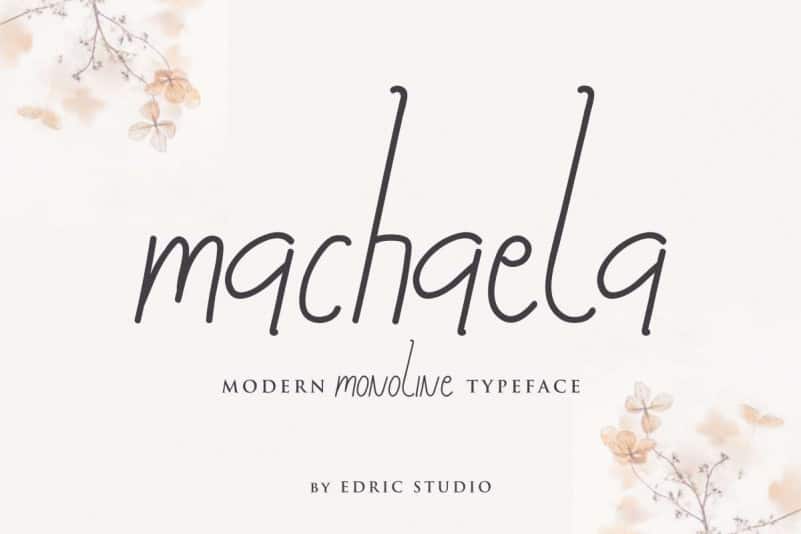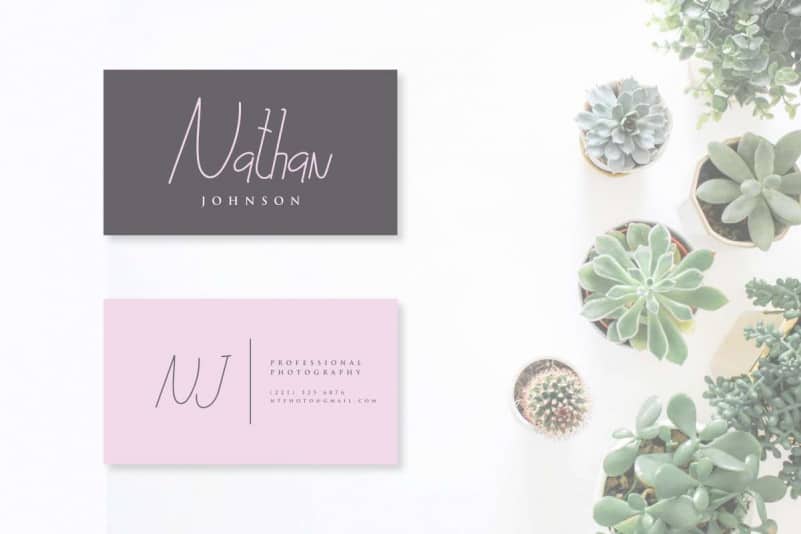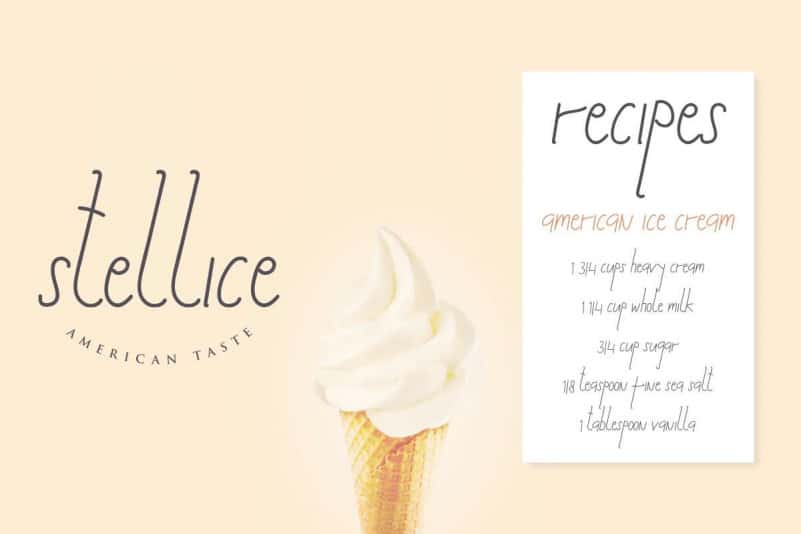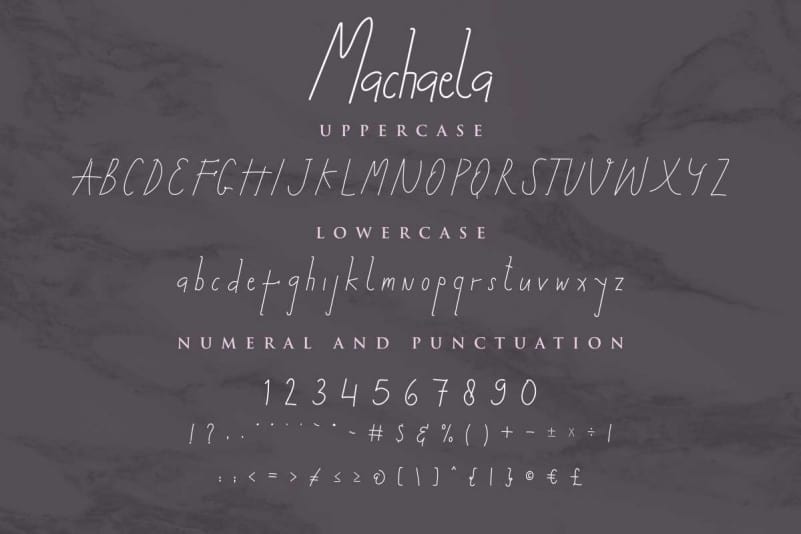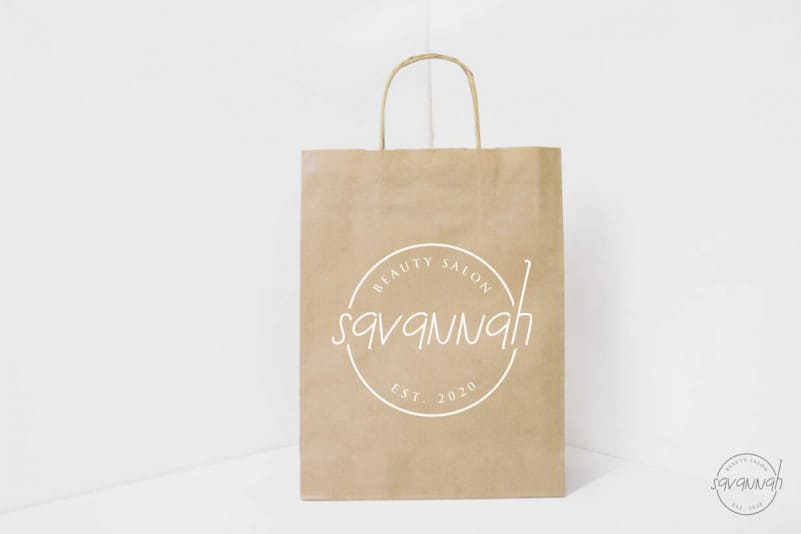
Machaela Handwritten Font
Machaela Handwritten Font has a great chars set so you can explore further more and use your creativity and beyond. This font will suits many projects categories : Logo type, flyer, stationery, business card, signage, flyer, brochure etc.  With your creativity, there’s no limit using with this font.
Machaela Handwritten Font will be great for many business categories : wedding, events, creative company, architect, interior designer, musician, florist, garden and lawn, advertising, makeup artist, composer, etc.